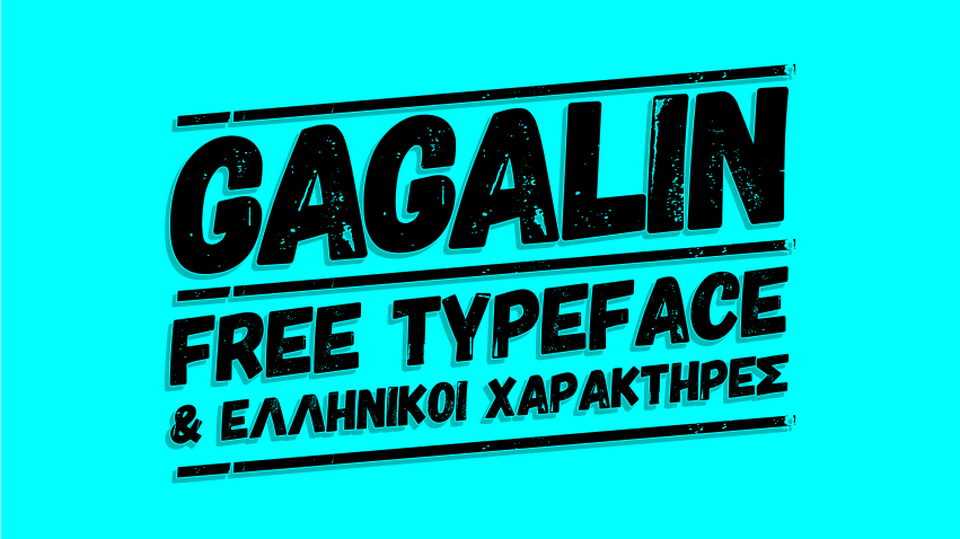
Download Gagalin font, a bold comic style handwritten typeface. Gagalin font works perfect for posters, headlines, t-shirts, magazines and other creative projects.
Designer: Iordanis Passas